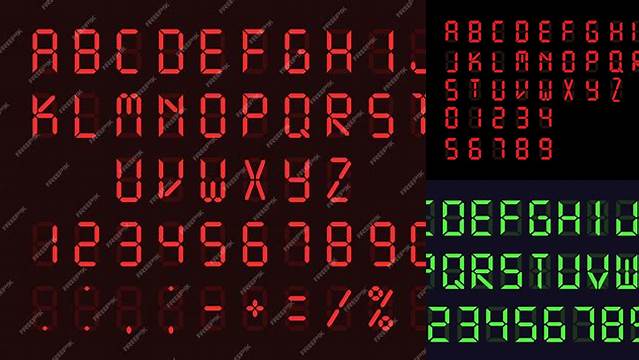
Red Lighting Font: Digital Display For Eye-Catching Designs
Premium Vector Digital Display Font: Red Lighting Letters & Numbers (Freepik)
Hey guys, let's dive into something super cool and visually appealing: a premium vector digital display font featuring those awesome red lighting letters and numbers, all thanks to the creative folks at Freepik! This isn't just any font; it's a digital dream, perfect for grabbing attention and adding a futuristic, high-tech vibe to your projects. Whether you're a designer, a marketer, or just someone who loves cool fonts, this one's got something special. Let's break down why this font is a winner and how you can use it to make your work pop!
The Allure of Digital Display Fonts
First off, why are digital display fonts so darn appealing? Well, they tap into our fascination with technology, innovation, and that sleek, modern aesthetic. Think of those stunning displays in sci-fi movies, the dashboards of futuristic cars, or the flashy interfaces of high-tech gadgets. Digital fonts capture that essence, translating the language of the digital world into something we can see and use. This particular font, with its red lighting effect, takes it a step further. Red, as a color, screams energy, excitement, and urgency – perfect for anything that needs to catch the eye immediately. The lighting effect adds a layer of depth and realism, making the characters appear to glow, as if they're powered by some kind of digital energy. This attention to detail makes the font stand out from the crowd. It gives a professional and polished look. Digital display fonts are a valuable asset for any designer. They are very versatile, can work for various projects and always deliver the message to the target audience. What's even better is that this is a vector font. That means you can scale it up or down without losing any quality. You can use it for huge billboards or small web graphics. If you're looking for a font that's both functional and stylish, digital display fonts are definitely a good choice.
This font is a great choice if you're working on projects like:
- Gaming: Perfect for game titles, user interfaces, or promotional materials.
- Technology: Great for websites, app interfaces, and any tech-related branding.
- Sci-Fi/Futuristic: Ideal for anything with a science fiction or futuristic theme.
- Marketing/Advertising: Excellent for headlines, posters, and any campaign needing a strong visual impact.
- Web Design: Makes headlines and calls-to-action pop. Consider using the font as a highlight within the content. This can grab your visitor's attention and keep them engaged.
Decoding the Red Lighting Effect
Now, let's talk about the red lighting. This isn't just about the color; it's about the effect it creates. The lighting adds a sense of depth and dimension, making the characters look like they're popping off the screen. It's a visual trick that instantly draws your eye and holds your attention. The specific shade of red is important too. A vibrant, electric red works best for a digital display font. It's eye-catching without being overwhelming. It's like the difference between a subtle glow and a neon sign. When you use this font, think about how it can enhance your message. Place the text in a way that makes it the focal point of your project. It helps to have a dark background so that the red lighting really pops. By choosing the right background, you make your message more engaging and easier to read. Use this combination of red and dark backgrounds to create a visually striking composition. By using the red lighting font you'll be able to give a modern, energetic vibe that makes a lasting impact on your audience.
Consider the emotional impact of the color red. Red is often associated with power, passion, and energy. You can use this font for projects that need a bold, assertive visual identity. It is especially suited for branding related to:
- Technology Companies: Create a modern and energetic image.
- Gaming Industry: Create exciting and captivating logos.
- Event Promotion: Design striking posters and advertisements.
Leveraging the Vector Advantage
One of the biggest advantages of this font is that it's a vector font. Unlike raster or bitmap fonts, which are made up of pixels, vector fonts use mathematical equations to define the shapes of the characters. This means you can scale the font up to any size without losing any quality or detail. Imagine using it for a huge billboard or a tiny icon on your website - it will always look crisp and clear. This flexibility is incredibly valuable for any designer. It gives you the freedom to use the font in a wide range of applications, from print to digital media. It's also much easier to edit and customize vector fonts. You can adjust the colors, add effects, and modify the shapes without worrying about pixelation. This gives you greater creative control over the final result. This vector advantage makes the font perfect for any project where visual clarity and impact are important. Using a vector font ensures that your designs always look professional and polished, regardless of the size or the medium. Whether you're designing for print, web, or video, this font will give you the versatility and quality you need. The ability to scale it without loss of quality is extremely important in today's design world, where content is consumed on a variety of devices. Vector fonts make sure your message looks its best, on any screen. It's a smart choice that shows you care about quality and your audience.
Applications and Creative Ideas
So, where can you use this awesome red lighting digital display font? The possibilities are practically endless, but here are a few ideas to get your creative juices flowing:
- Gaming Logos and Titles: Create eye-catching logos for your gaming channel or game titles. The font's futuristic look is ideal for this. Use the red lighting to emphasize the game's energy and excitement.
- Tech Website Headers: Design bold and modern headers for your tech website or blog. It's a great way to show that you are up-to-date and forward-thinking. This also draws the attention of visitors.
- Sci-Fi Movie Posters: Make posters for your sci-fi film or short video. The font's unique look complements the sci-fi aesthetic well.
- Event Promotion: Use the font to create posters, flyers, or social media graphics. This font can help you stand out from the crowd.
- App User Interfaces: Design app interfaces that are both visually appealing and easy to read. This font's clean and clear style is very suitable for this.
Getting the Most Out of Your Font
To really make the most of this font, consider a few tips:
- Contrast is Key: Pair the red lighting font with a dark background to make the red really pop.
- Strategic Placement: Use the font for headlines, titles, or key messages. Be sure to use it where you want to draw the most attention.
- Color Variations: Experiment with different shades of red, or add a subtle glow effect to enhance the lighting.
- Combine with Other Fonts: Don't be afraid to mix the digital display font with other fonts. It can enhance readability and visual interest. Choose fonts that complement the red lighting font's style.